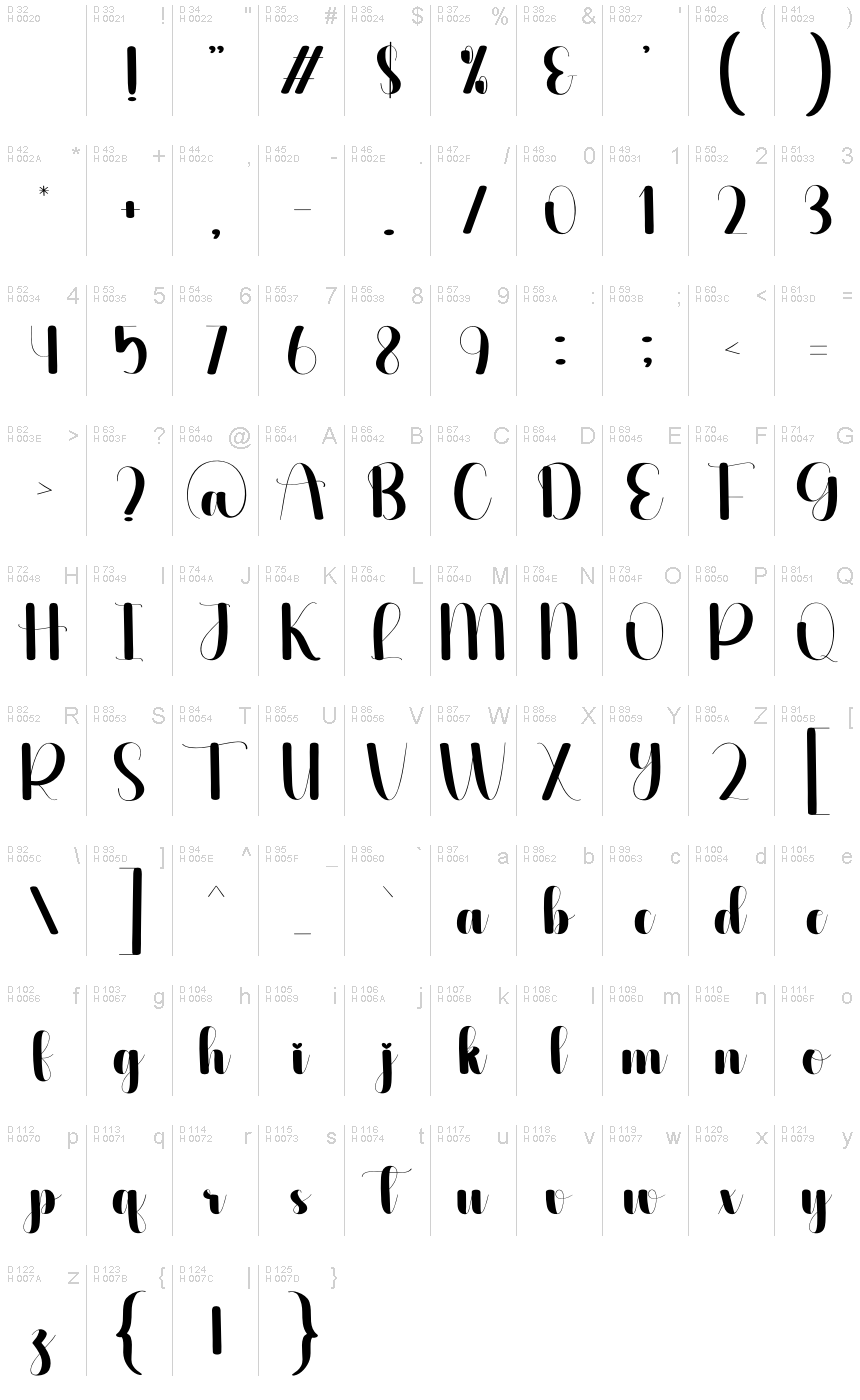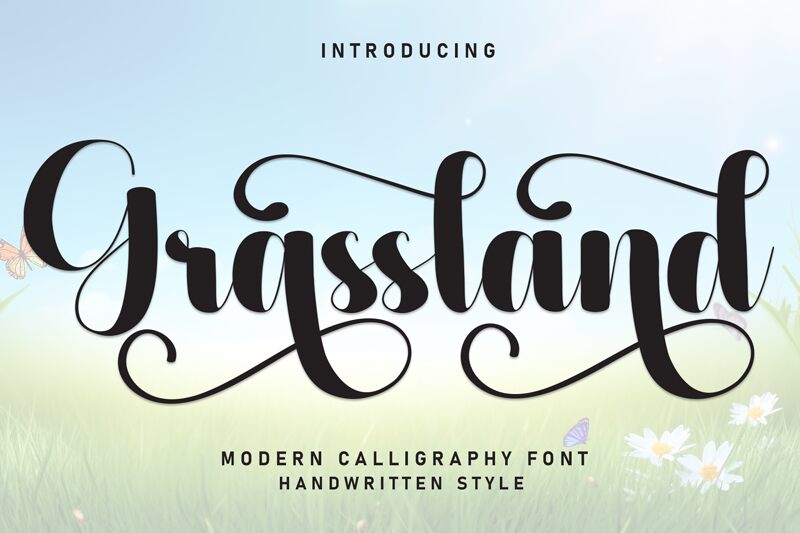
Grassland
Grassland font by Scratchones is a modern calligraphy font that embodies elegance, flow, and expression. This decorative typeface is beautifully playful, making it perfect for those who seek a fun yet sophisticated feel.
A great free calligraphy font for logos, branding design, packaging design especially labels for boxes or bottles, book covers & magazine covers as titles or subtitles. It would look perfect with invitations and greeting cards too as well as posters where it can steal the spotlight.